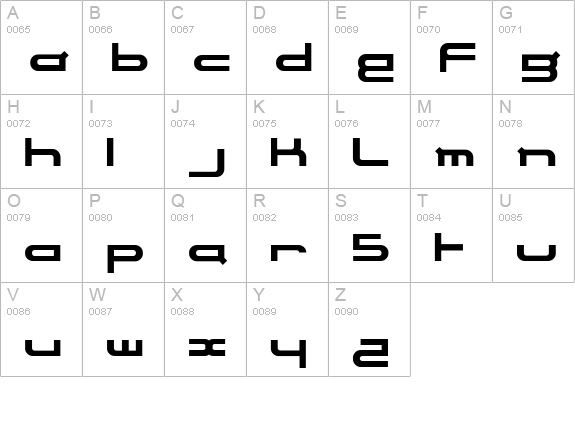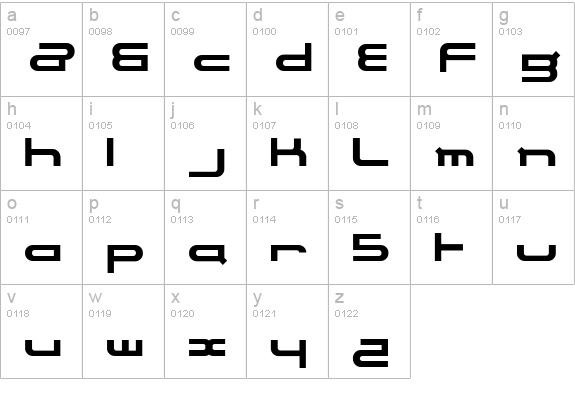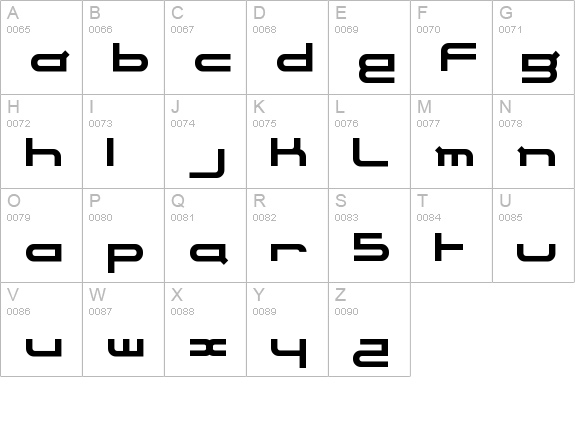
electrance Font Details
Introducing Electrance Font - a stunning and modern typeface perfect for adding a touch of elegance to your projects. With its sleek and futuristic design, Electrance Font is sure to make a statement and captivate your audience. This versatile font is ideal for a wide range of design projects, from branding and advertising to web design and social media graphics. What sets Electrance Font apart is not only its unique style but also the fact that it is available for free download at FontsMarket.com. Yes, you read that right - this incredible font can be yours at no cost, allowing you to elevate your designs without breaking the bank. Don't miss out on this opportunity to enhance your creative endeavors with Electrance Font. Download it today and let your imagination soar!